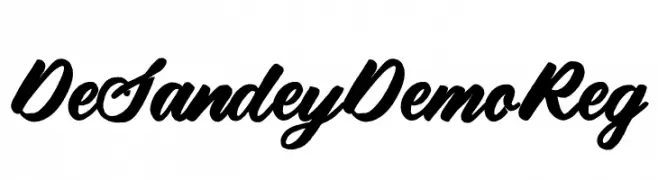
A bold, expressive handwritten font with dynamic strokes and a playful appearance.
A lively handwritten font with fluid strokes and elegant slant.
A bold, playful script font with a handwritten style.